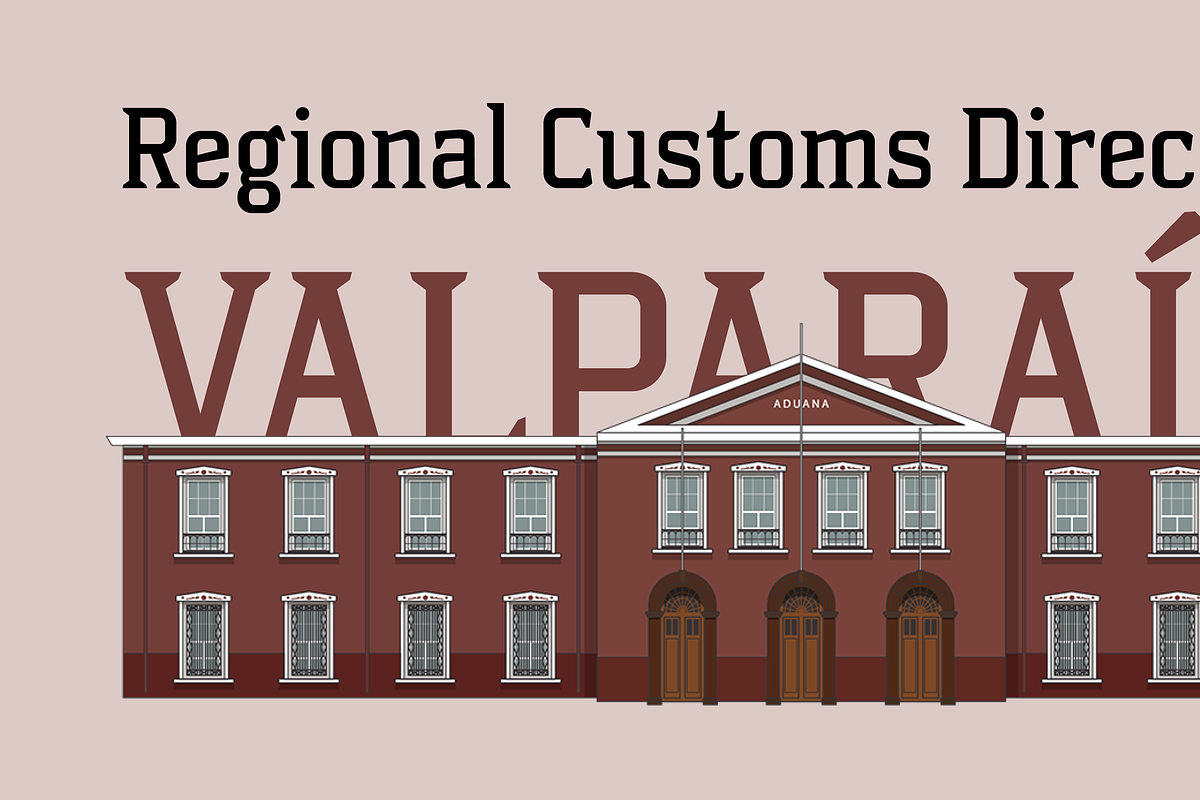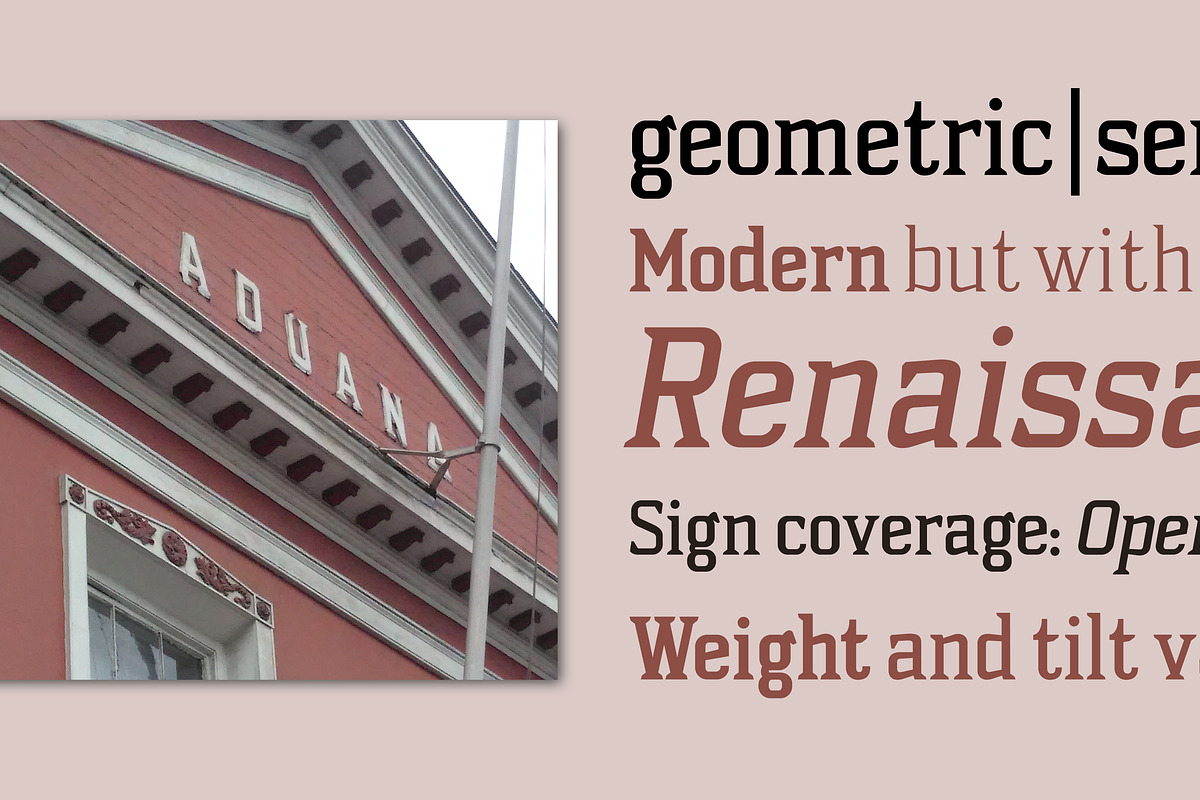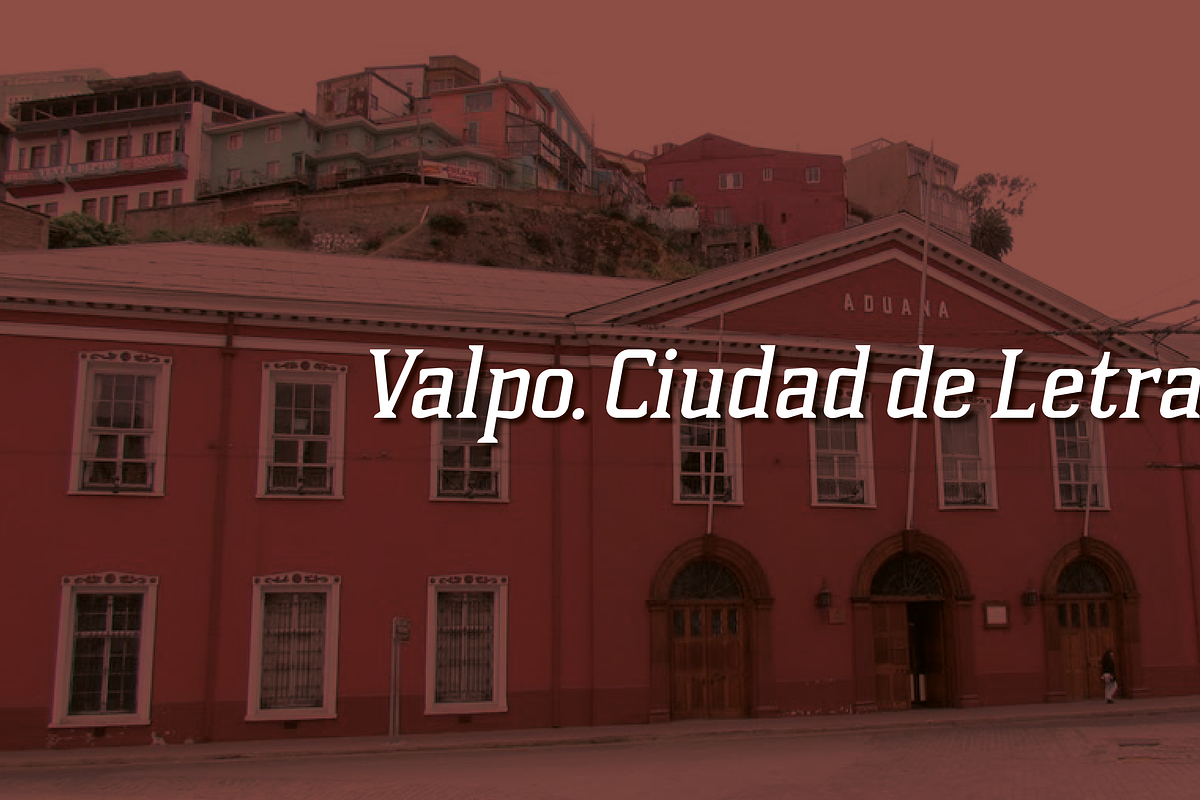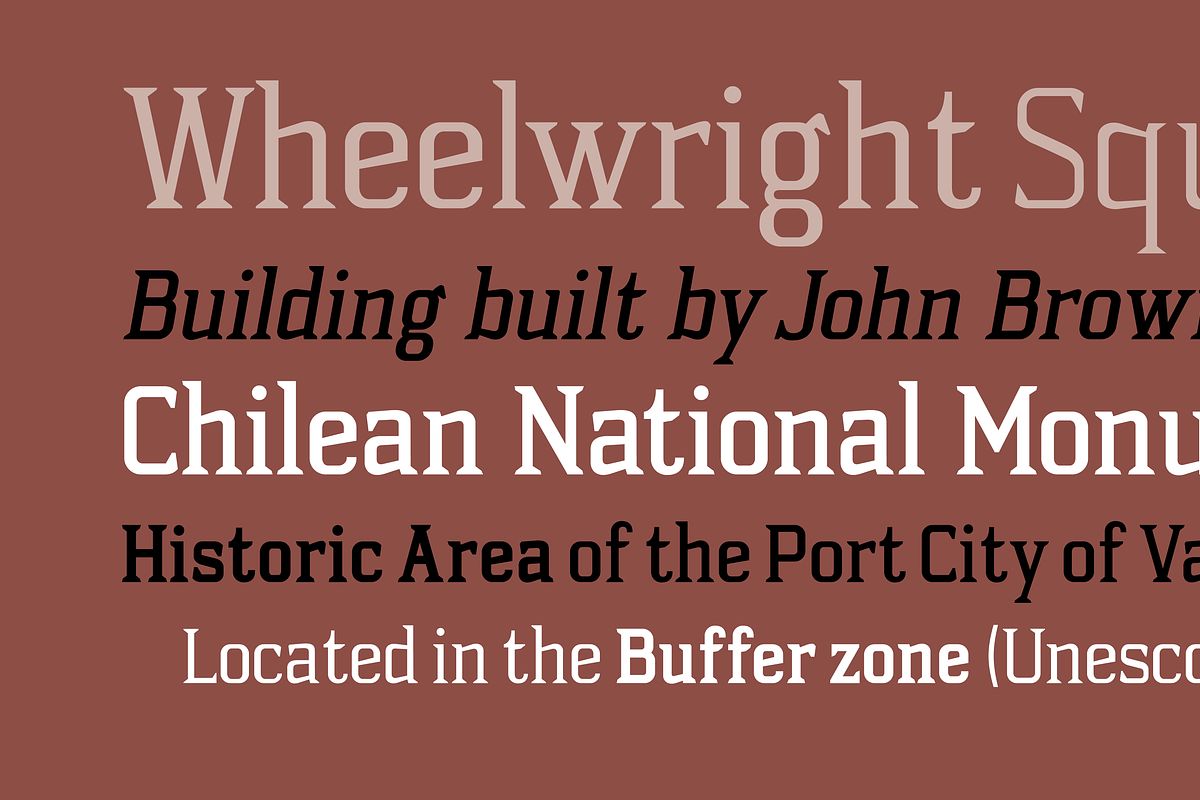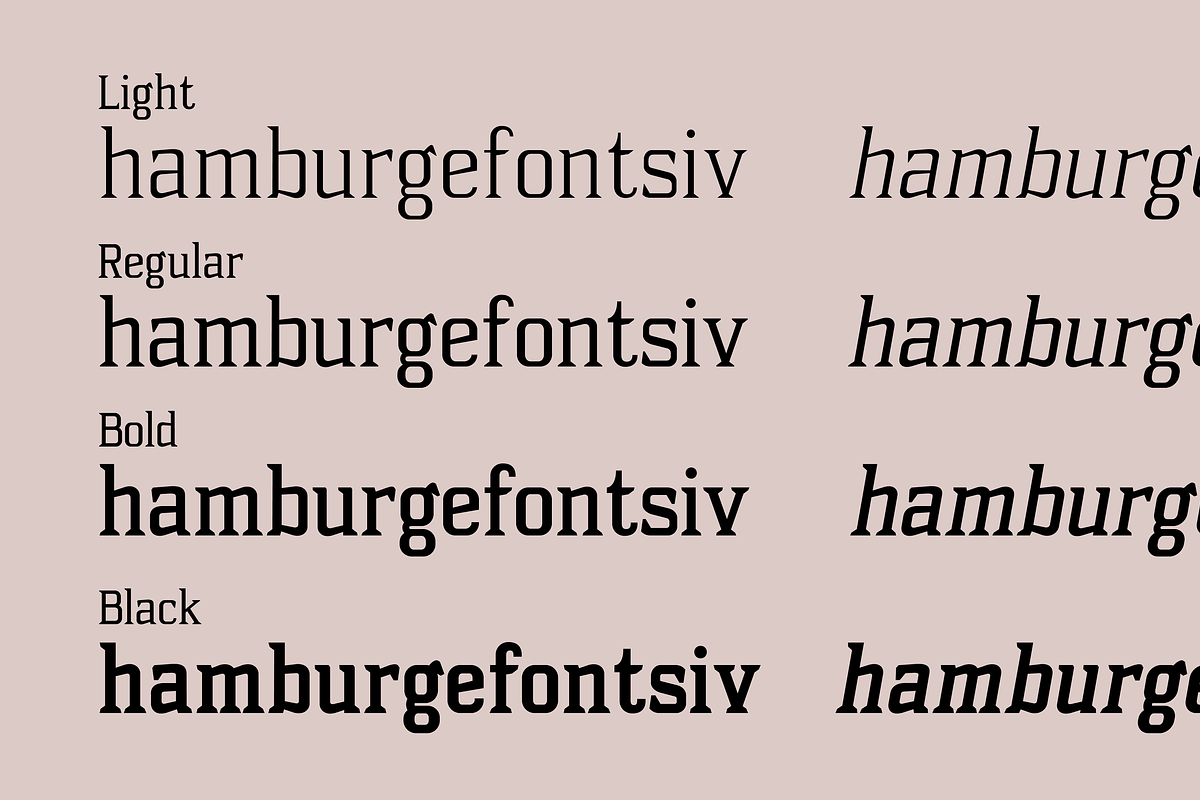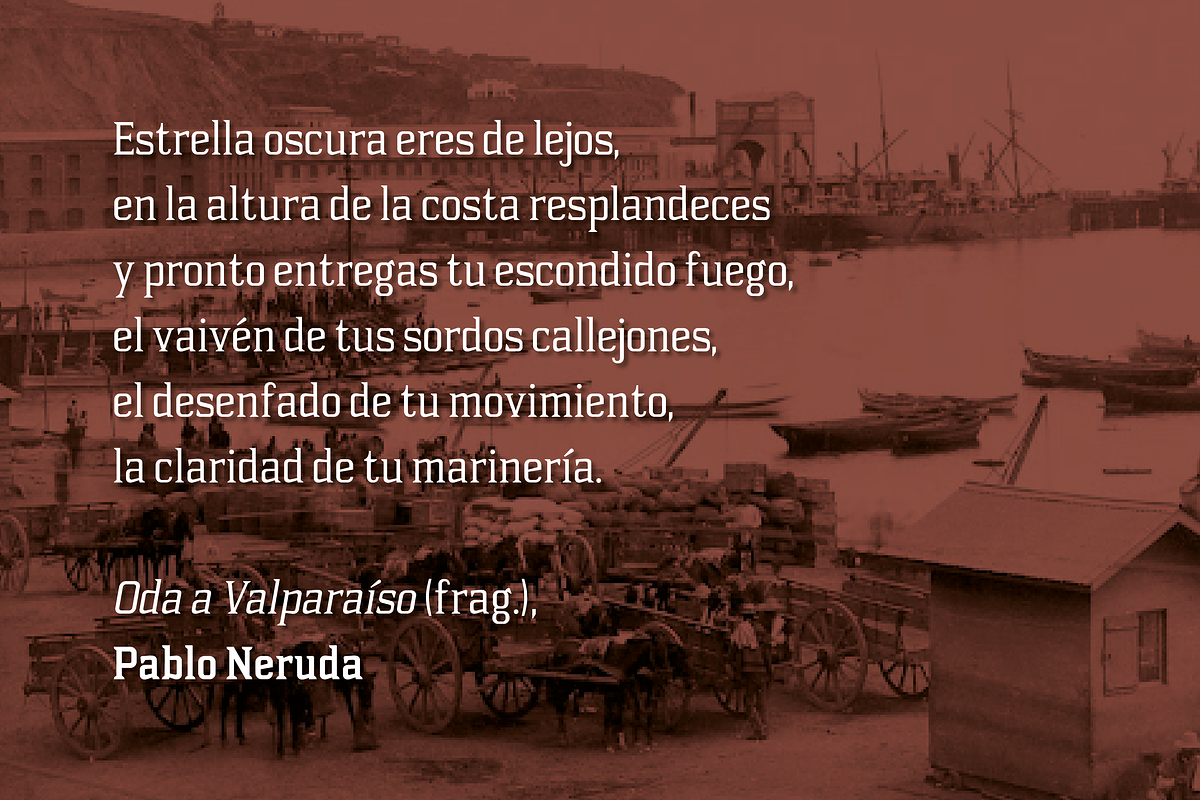
Aduana
Aduana is a display serif typeface inspired by the lettering found on the Customs building in Valparaíso, Chile. Its design reflects a modern renaissance style with geometric shapes and subtle line modulation characteristic of didone typefaces. Proceeds from font sales support the 'Valpo. Ciudad de Letras' typographic archaeology project.